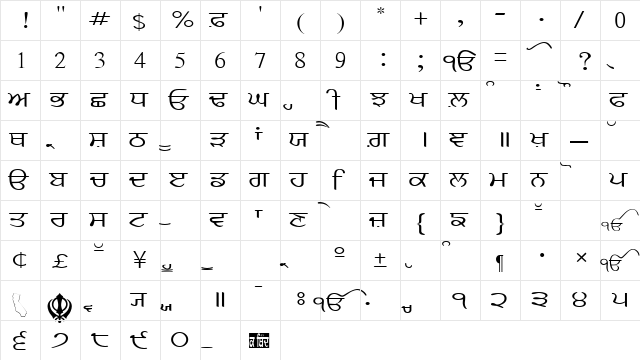
AnmolKalmi Regular
Design Context for AnmolKalmi Typeface
AnmolKalmi takes a measured approach to typography — its balanced proportions and neutral character make it a reliable workhorse for both digital and print work.